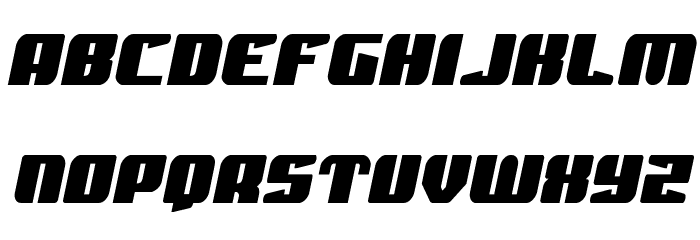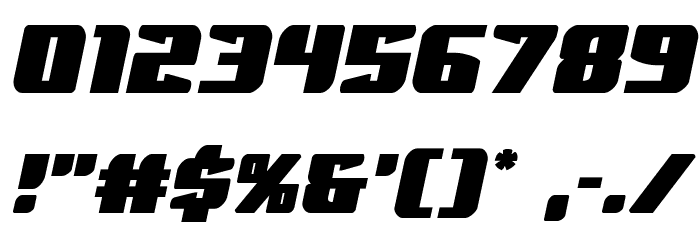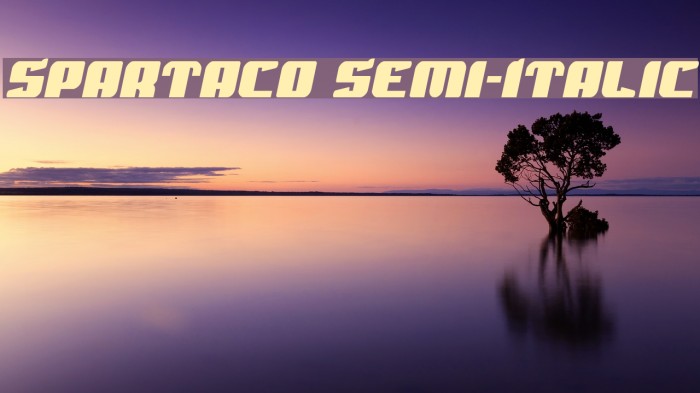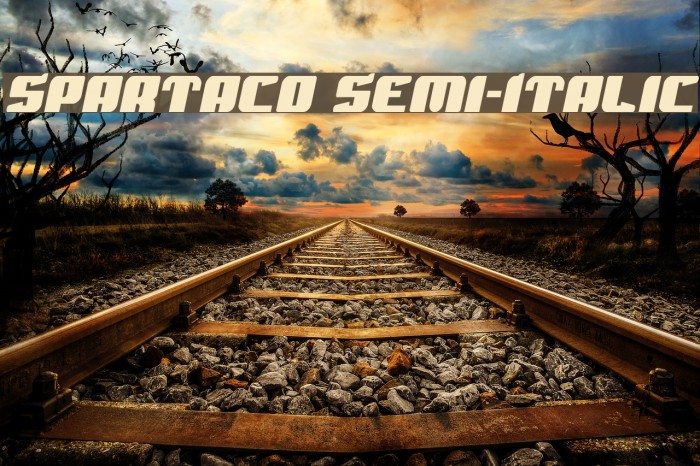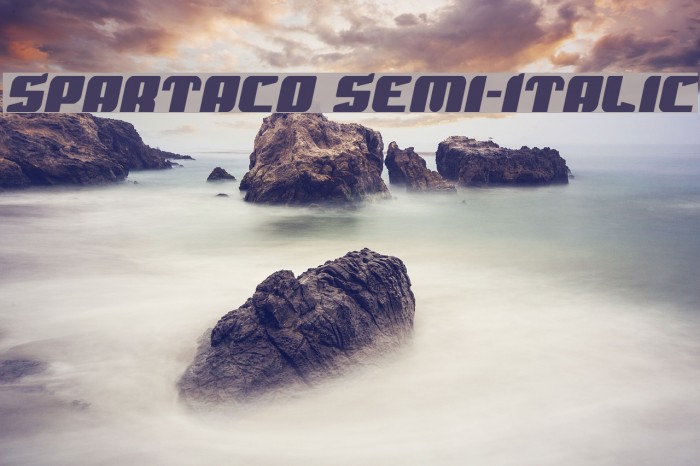
Spartaco Semi-Italic Font
This font features a bold and dynamic style with a semi-italic slant, giving it a sense of motion and energy. The characters are robust and impactful, with a strong presence that commands attention. The angular design and sharp edges contribute to a modern and edgy appearance, making it suitable for projects that require a bold statement. The uppercase and lowercase letters maintain a consistent style, while the numerals and special characters complement the overall design. This font is ideal for creating eye-catching headlines, posters, and branding materials that need to stand out.
A bold, semi-italic font with a dynamic and modern style.
- Proposed Projects: Ideal for headlines, posters, branding, and any project requiring a bold statement.